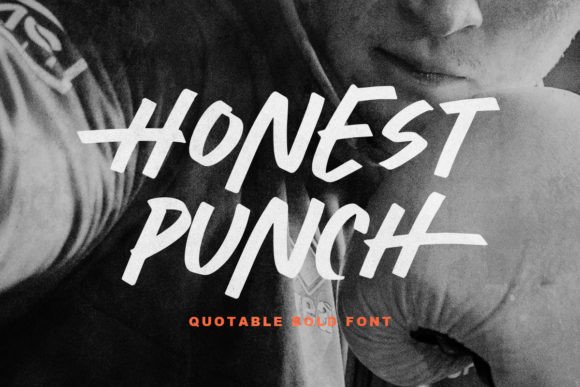
Prepare to be captivated by Honest Punch, a font that packs a punch with its bold and striking presence. This display font is the epitome of strength and power, making it the perfect choice for creating impactful designs that demand attention.
Immerse yourself in the world of Honest Punch, where every letter exudes confidence and determination. Its unwavering readability and crystal-clear appearance make it an ideal font for conveying messages that resonate with your audience. Whether it's a tagline that sparks intrigue or a brand identity that commands respect, Honest Punch is your go-to font for making a lasting impression.
Unleash your creativity with Honest Punch's captivating lowercase and uppercase characters. Each letter is meticulously crafted to add a touch of elegance and sophistication to your designs. Create logos that exude professionalism, posters that ignite passion, and social media graphics that captivate your followers.
With Honest Punch by your side, you'll never have to settle for ordinary fonts again. This font is your ticket to creating designs that resonate, designs that leave an unforgettable mark on your audience. Elevate your projects to new heights with Honest Punch, the font that embodies strength, clarity, and creativity.